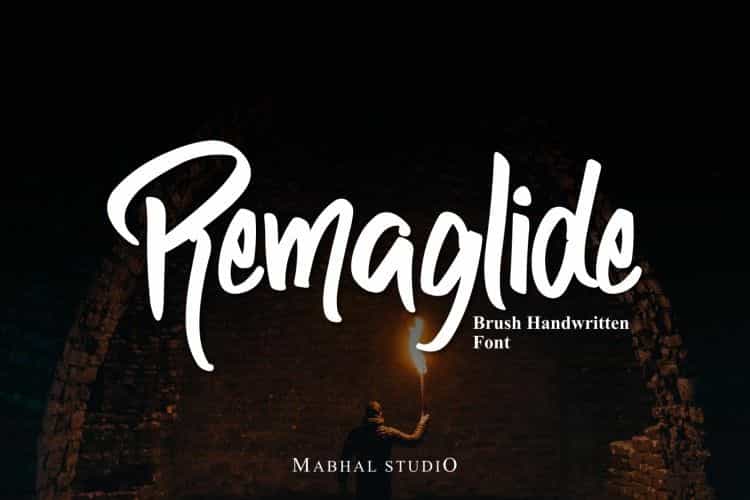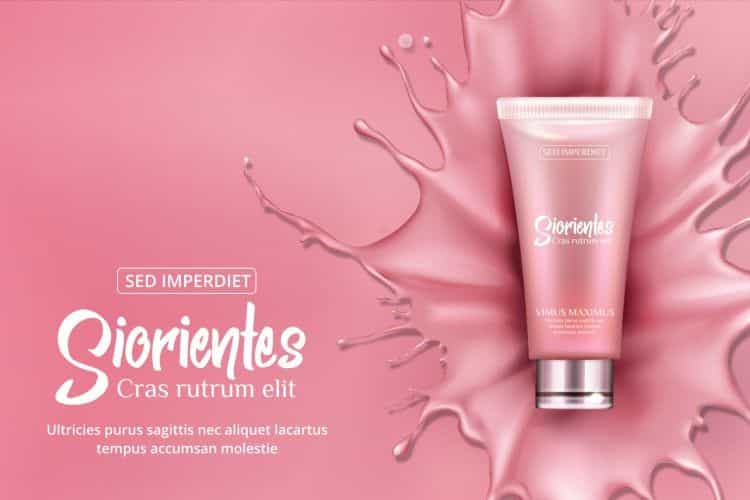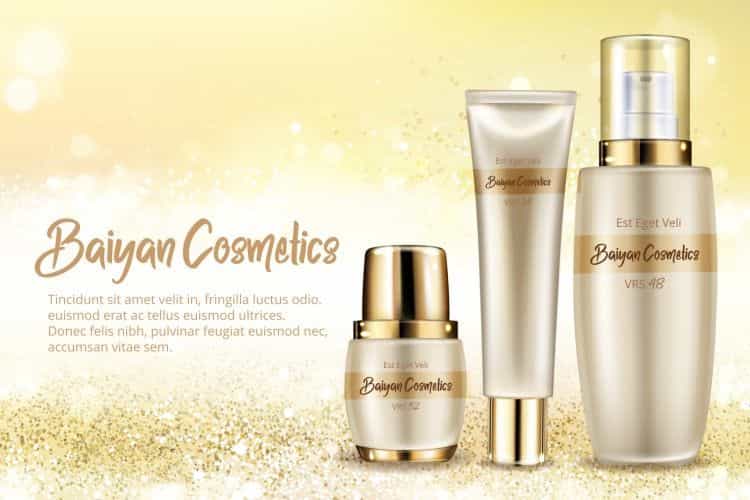
Remaglide is the contemporary script font, every single letter has been carefully designed to make your text look beautiful. With modern script style this font will perfect for many different project ex: quotes, blog header, poster, wedding card design and so on.